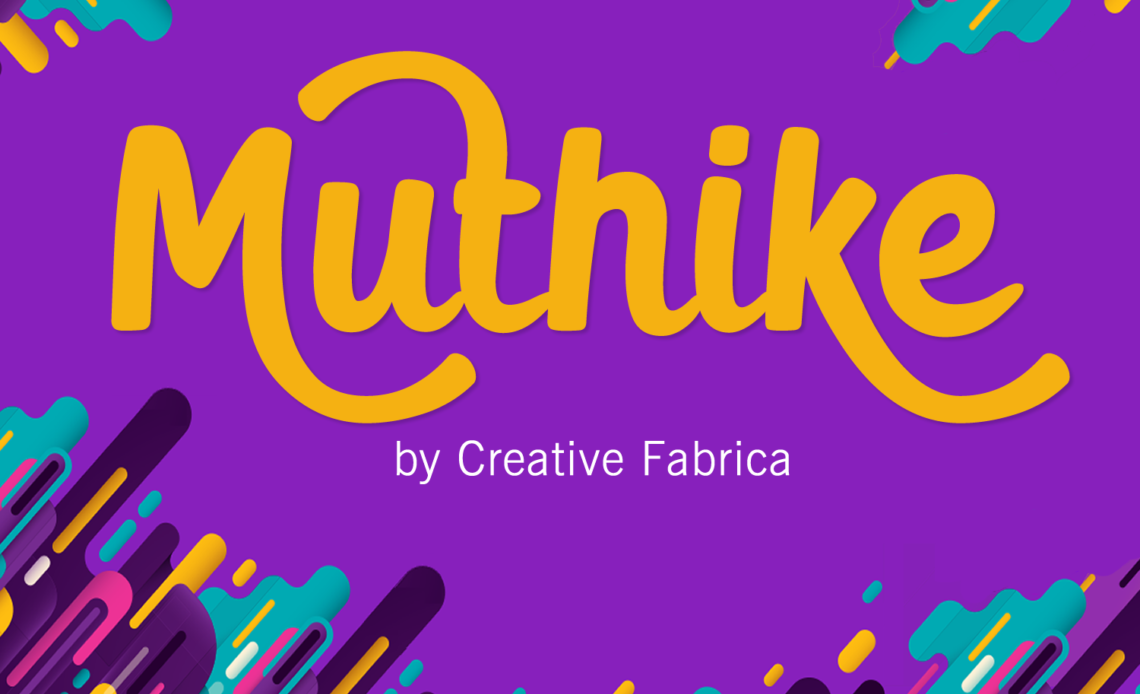
Introducing Muthike Font, the bold and playful hand-painted font that will transform your designs into captivating masterpieces. Dive into a world of visual delight, where your words will dance with personality and ignite imaginations.
Muthike, a Creative Fabrica exclusive, is a symphony of flowing strokes and enchanting swashes, designed to make your words sing. Experience the joy of effortless creativity as you effortlessly craft unique and eye-catching designs that leave a lasting impression.
With its playful and expressive character, Muthike is the perfect choice for adding a touch of whimsy and charm to your projects. Unleash your creativity and let the vibrant energy of Muthike infuse your designs with a sense of wonder and delight.
Discover the endless possibilities of Muthike, a font that knows no bounds. From whimsical invitations to captivating social media posts, from enchanting logos to heartwarming branding materials, Muthike effortlessly adapts to your creative vision, transforming your words into visual poetry.
Step into the realm of Muthike and embark on a creative journey like no other. Embrace the magic of this hand-painted font and let your imagination soar. With Muthike at your fingertips, the possibilities are limitless.